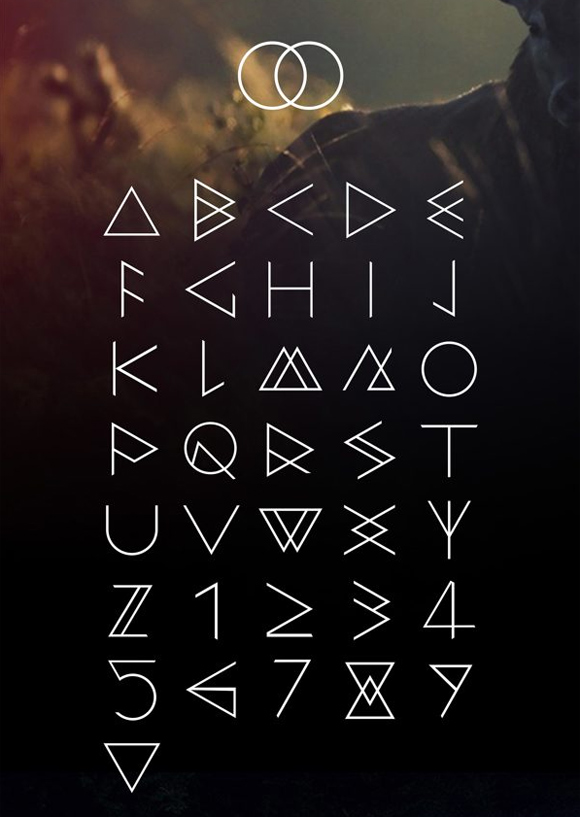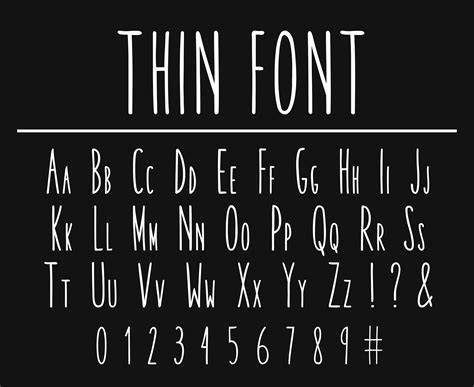
Cool Thin Fonts For 2023
What Are Cool Thin Fonts?
Cool thin fonts are typefaces that feature a thin stroke weight. They are often used to create a modern and minimalistic design. Cool thin fonts come in a variety of styles, from serifs to sans-serifs, and they are usually used in headlines and titles. Because of their thin line weight, they can be difficult to read at small sizes, but they look great when used to make a statement.
Using Cool Thin Fonts In Design
Cool thin fonts can add a lot of impact to a design. They are perfect for titles and headlines because they draw attention to the text and create a sleek, modern look. They can also be used to create a minimalistic design with a modern edge. They can be used to create a contemporary look that stands out from the crowd.
When using cool thin fonts in a design, it is important to keep the design balanced. Too much thin font can make the design look busy and cluttered, while too little can make the design look dull and lifeless. It is important to choose the right combination of fonts to create a harmonious design.
Popular Cool Thin Fonts
There are many popular cool thin fonts available. Some of the most popular are Montserrat, Gotham, Open Sans, and Roboto. Montserrat is a sans-serif font with a modern, minimalistic look. Gotham is a serif font with a modern feel. Open Sans is a sans-serif font with a more traditional look. Roboto is a sans-serif font with a modern, geometric look.
Finding Cool Thin Fonts
Cool thin fonts are a great way to add a modern, minimalistic look to a design. They are perfect for titles and headlines and can be used to create a contemporary look. They can be found on many websites, such as Font Squirrel and Google Fonts. With the right combination of fonts, they can create a balanced, harmonious design that stands out from the crowd.